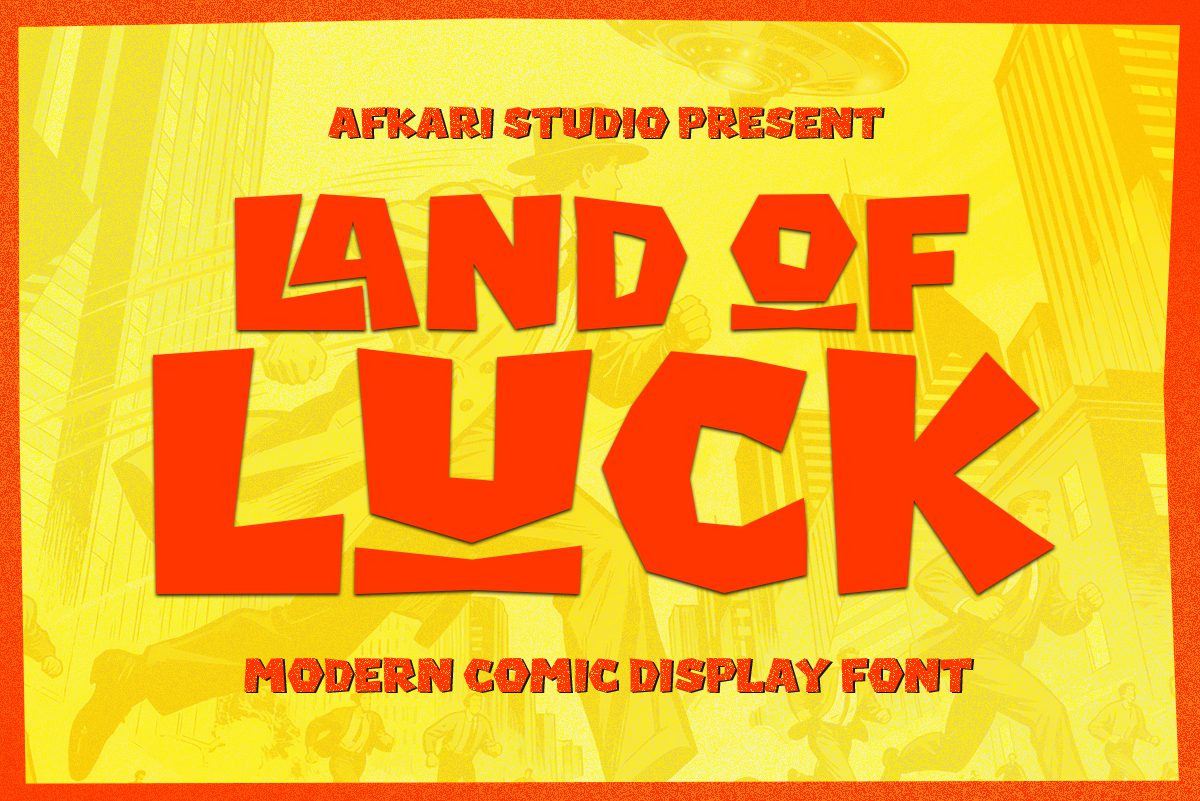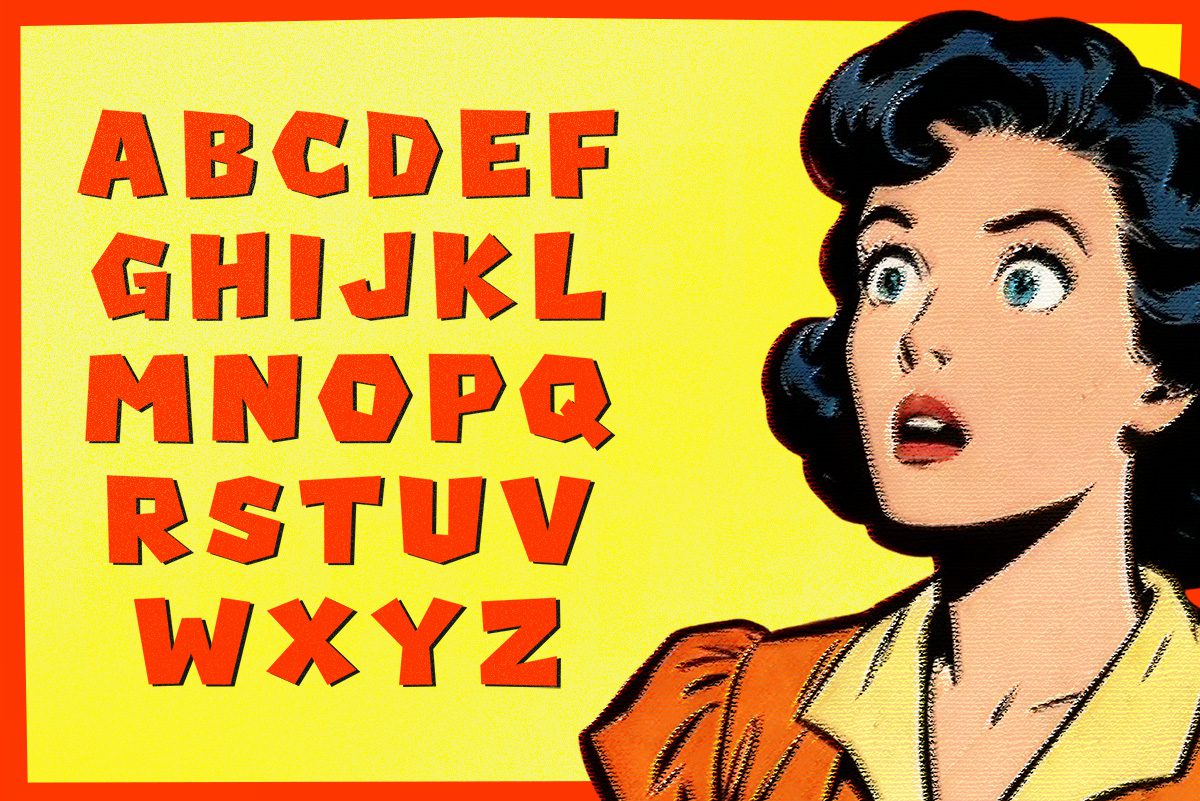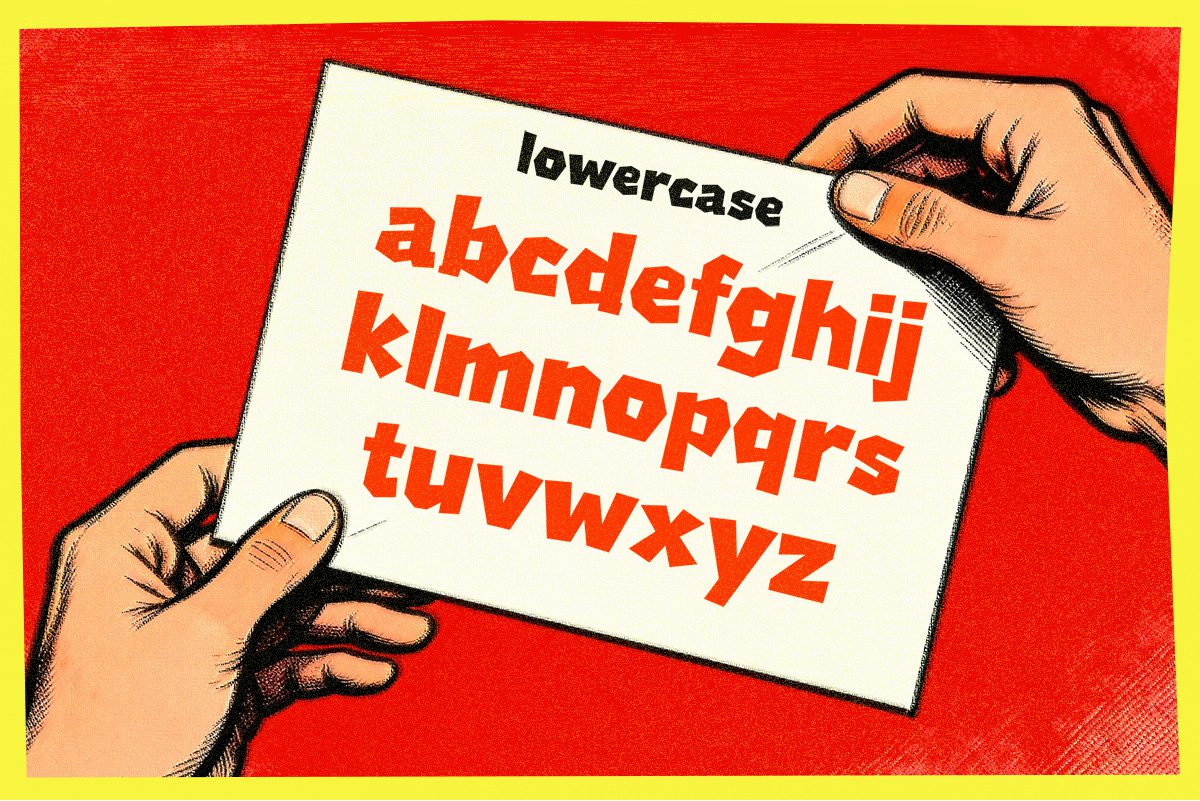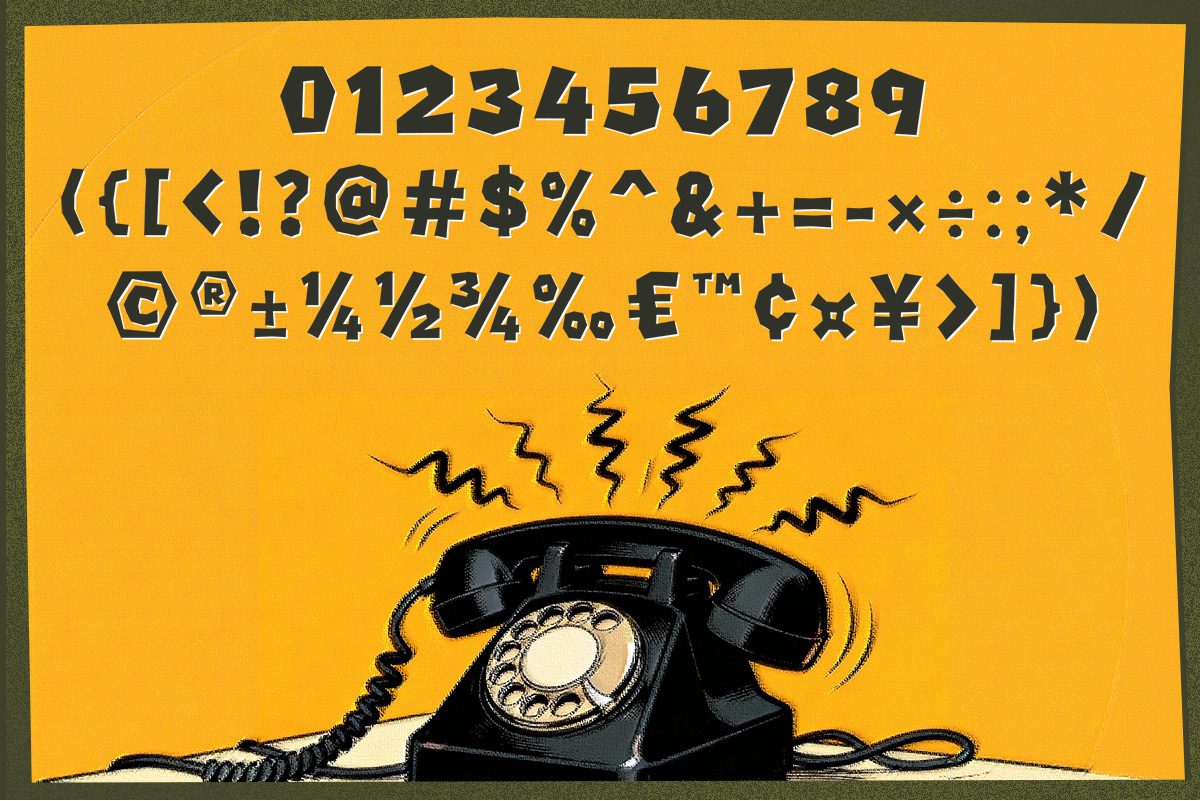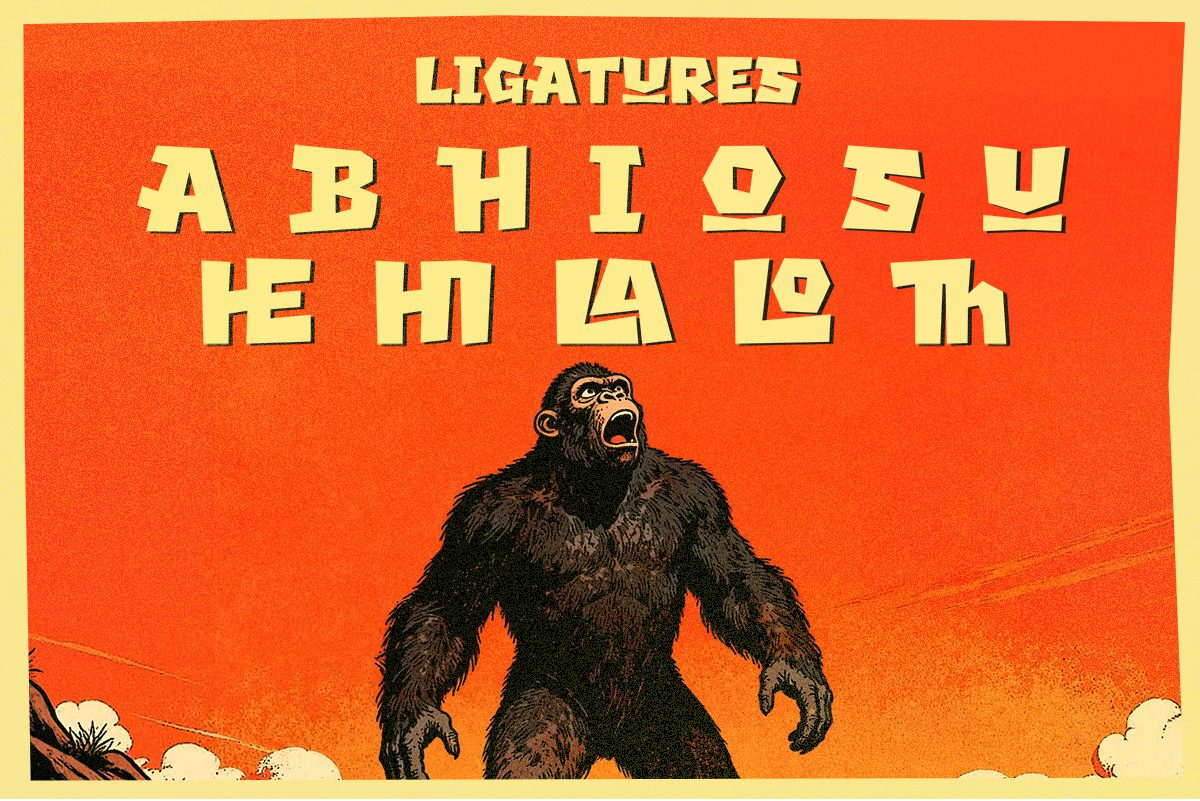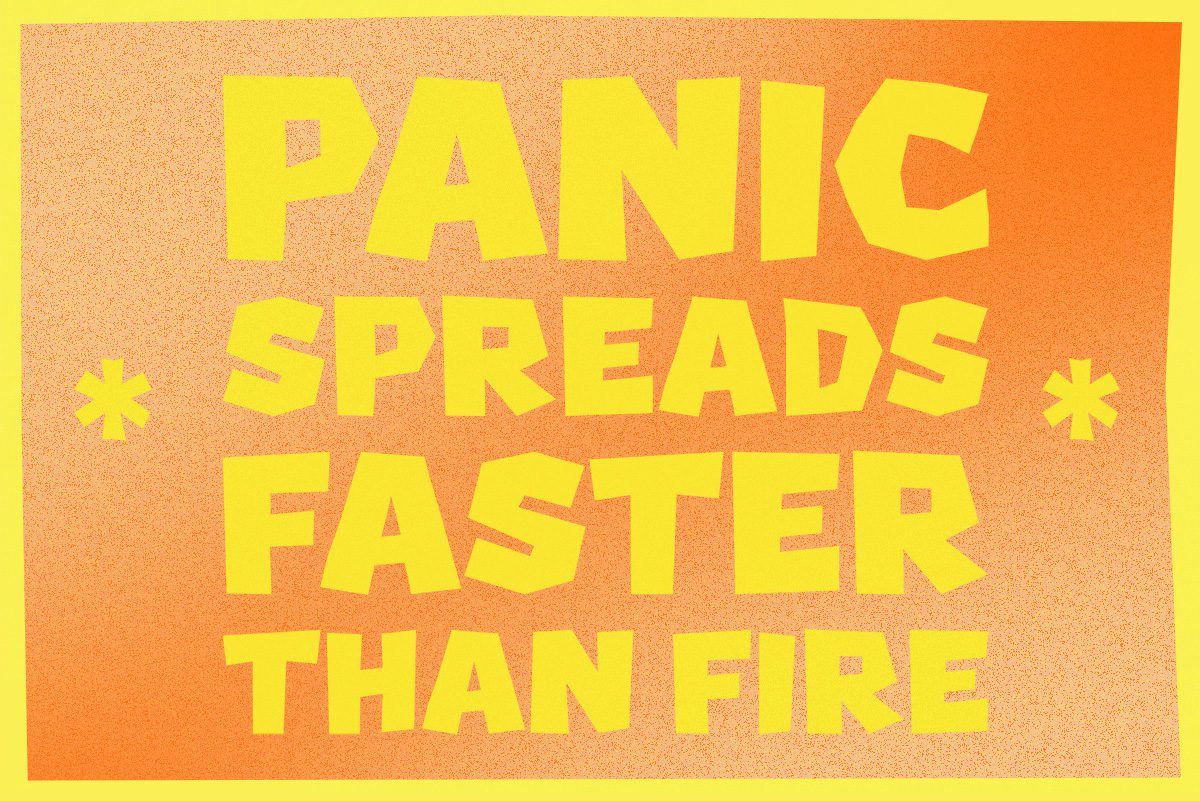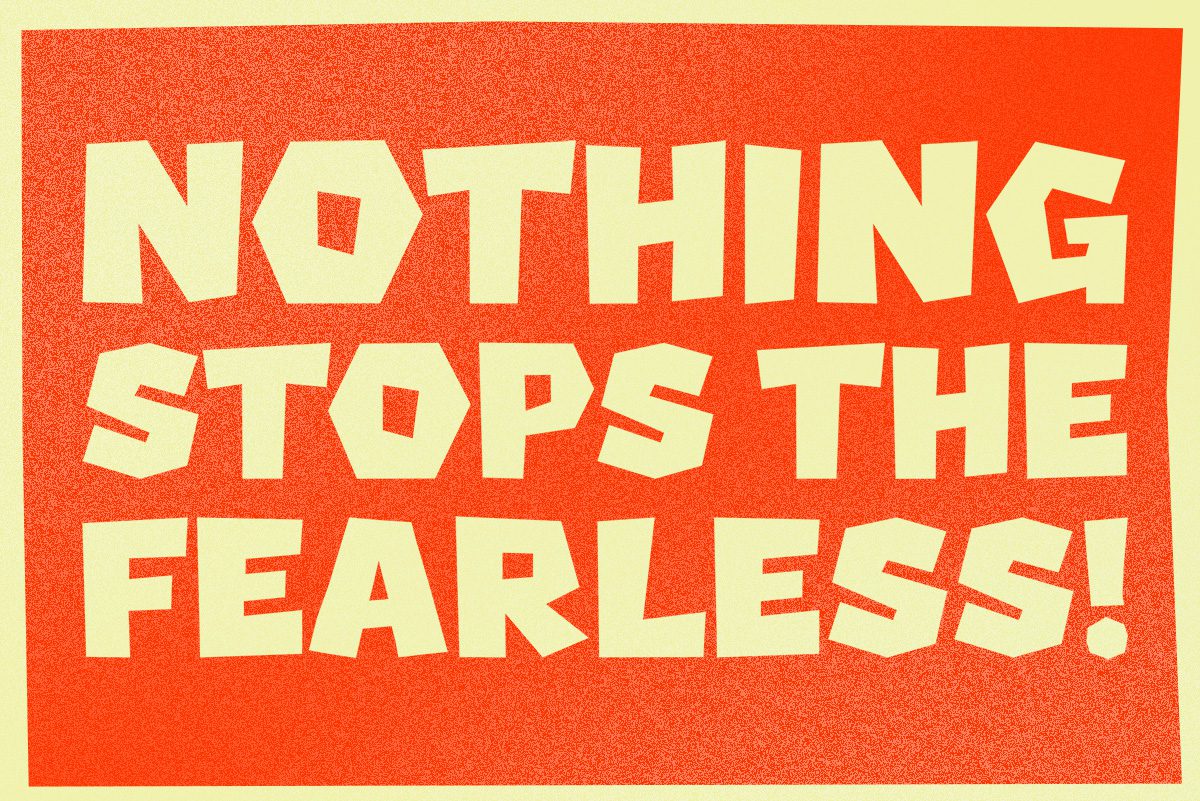
Land of Luck - Modern Comic Display Font
Land of Luck is a fun and energetic modern comic display font designed to bring joy, playfulness, and bold personality into your designs. With chunky shapes, smooth curves, and a friendly cartoon-inspired style, this font delivers a lively look that instantly grabs attention.
Perfect for creative projects that need a cheerful and approachable vibe, Land of Luck works beautifully for kids designs, comics, posters, branding, packaging, social media content, and playful headlines. Its modern comic style keeps the font fresh and versatile—fun without feeling childish.
Land of Luck is made for designers who want their typography to feel happy, bold, and full of character.
Highlighted Features:
• Uppercase, Lowercase, Number, and Punctuation
• Special alternates and ligatures
• MĂĽltĂ®líñgúãl SĂąppört for; ä ö ĂĽ Ă„ Ă– Ăś Ăź Âż ¡